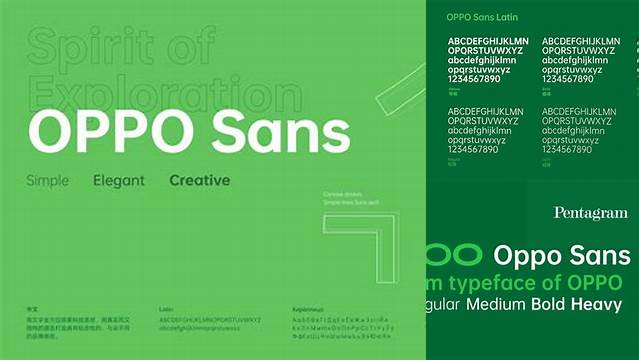
Introduction: Diving into the World of Oppo Sans VF
Hey guys! Are you on the hunt for a sleek, modern font that can elevate your design projects? Look no further! In this comprehensive guide, we're going to dive deep into the world of Oppo Sans VF, a versatile and visually appealing typeface that's been making waves in the design community. We'll explore what makes Oppo Sans VF so special, where you can find it for free download, and how to best utilize it in your creative endeavors. So, buckle up and let's get started!
Oppo Sans VF isn't just another font; it's a carefully crafted typeface designed with both aesthetics and functionality in mind. Its clean lines, balanced proportions, and subtle curves make it incredibly legible across various platforms and screen sizes. Whether you're designing a website, creating marketing materials, or working on a mobile app, Oppo Sans VF offers a professional and contemporary look. The beauty of a Variable Font (VF) like Oppo Sans VF lies in its adaptability. Unlike traditional fonts with fixed weights and styles, a VF allows for seamless adjustments along various axes, such as weight, width, and slant. This means you have granular control over the font's appearance, enabling you to fine-tune it to perfectly match your design needs. Imagine being able to subtly tweak the font weight to create a visual hierarchy or adjust the width to fit text within a specific container. Oppo Sans VF puts this power in your hands, offering unparalleled flexibility and creative possibilities. Furthermore, the optimized design of Oppo Sans VF ensures it renders beautifully on screens, making it an excellent choice for digital projects. Its clarity and readability are maintained even at smaller sizes, preventing eye strain and ensuring a pleasant viewing experience for your audience. It's also a fantastic option for print materials, where its elegant letterforms and precise details shine. From headings and body text to captions and call-to-action buttons, Oppo Sans VF seamlessly integrates into any design element, adding a touch of sophistication and modernity. So, if you're looking to give your projects a visual upgrade, Oppo Sans VF is a font that's definitely worth exploring. In the following sections, we'll guide you through the process of finding and downloading this font for free, as well as provide tips and tricks for using it effectively in your designs. Stay tuned!
What Makes Oppo Sans VF So Special?
Okay, so you might be wondering, what exactly makes Oppo Sans VF stand out from the crowd? Well, let's break it down. First off, its modern and clean design is a major draw. The font features a contemporary sans-serif style with a touch of elegance, making it suitable for a wide range of applications. Think branding, websites, apps, and even print materials – Oppo Sans VF can handle it all. The versatility of this font is another key aspect of its appeal. Oppo Sans VF isn't just a single font; it's a variable font, which means it offers an incredible amount of flexibility. Variable fonts are a relatively new technology in the font world, and they're changing the way designers work. Instead of having separate font files for different weights (like light, regular, bold), a variable font packs all that information into a single file. This results in smaller file sizes and faster loading times, which is crucial for web performance. But the real magic of variable fonts lies in their ability to be customized. With Oppo Sans VF, you can adjust the font's weight, width, and other parameters to achieve the exact look you need. This level of control is unprecedented, allowing you to create unique typographic expressions that perfectly match your brand's identity. Imagine needing a slightly bolder version of the font for a heading, or a narrower version to fit into a tight space. With Oppo Sans VF, you can make these adjustments on the fly, without having to switch between different font files. This not only saves you time but also ensures consistency across your designs. Beyond its technical advantages, Oppo Sans VF also boasts exceptional readability. The letterforms are carefully crafted with balanced proportions and ample spacing, making it easy on the eyes even at small sizes. This is especially important for body text, where readability is paramount. Whether you're designing a website with long articles or a mobile app with limited screen space, Oppo Sans VF will ensure that your content is legible and engaging. The font's clean and modern aesthetic also contributes to its readability. Its lack of excessive ornamentation and its clear, straightforward letterforms make it easy to process information quickly. This is crucial in today's fast-paced world, where people often scan content rather than reading it word for word. In addition to its visual appeal and technical capabilities, Oppo Sans VF is also designed with accessibility in mind. Its clear letterforms and adjustable parameters make it a great choice for users with visual impairments or other accessibility needs. By using Oppo Sans VF, you can ensure that your designs are inclusive and accessible to everyone. So, to sum it up, Oppo Sans VF is special because it combines modern design, incredible versatility, exceptional readability, and accessibility. It's a font that empowers designers to create beautiful and effective typography for a wide range of applications. In the next section, we'll explore where you can download this amazing font for free, so you can start using it in your own projects.